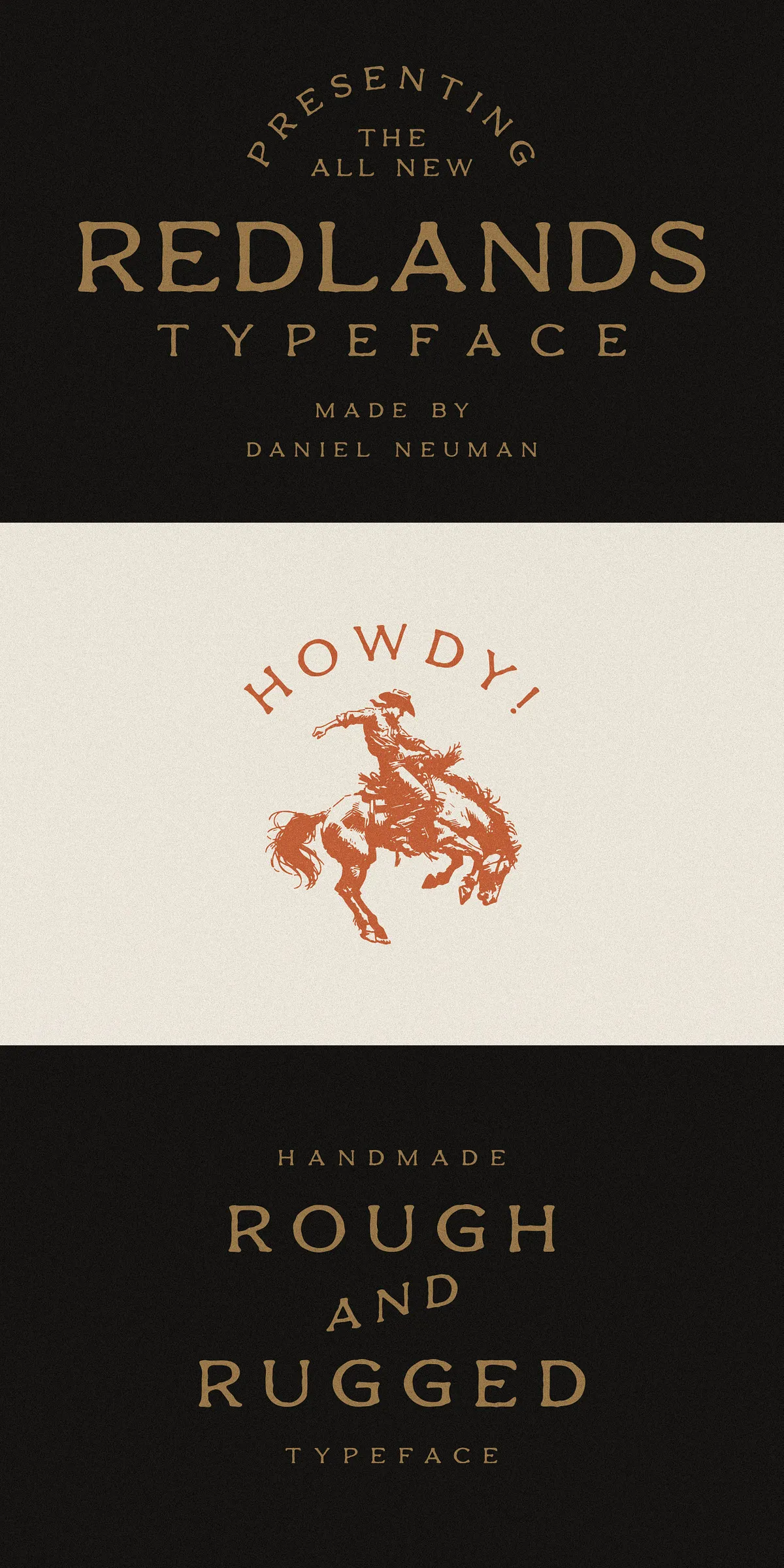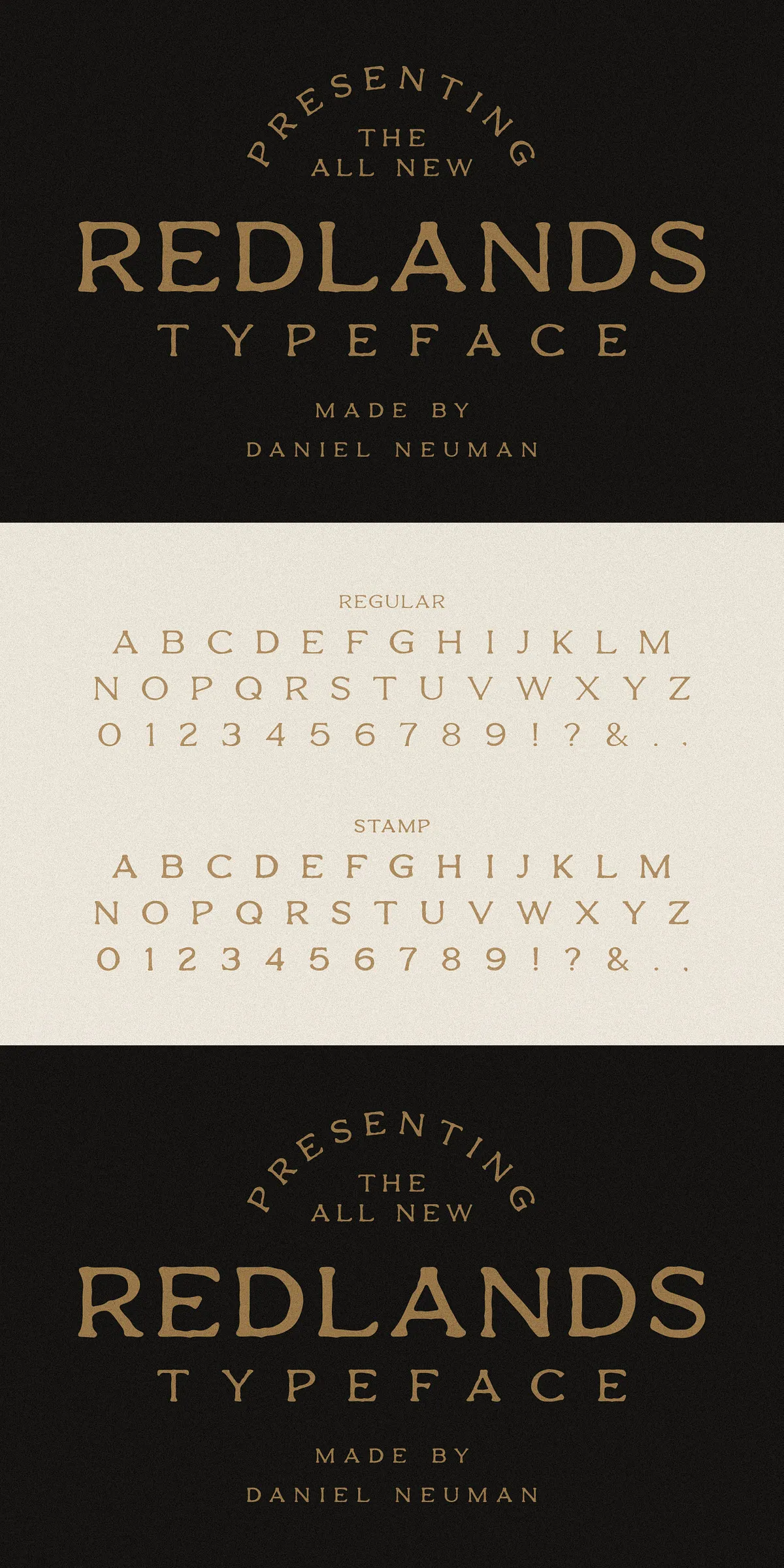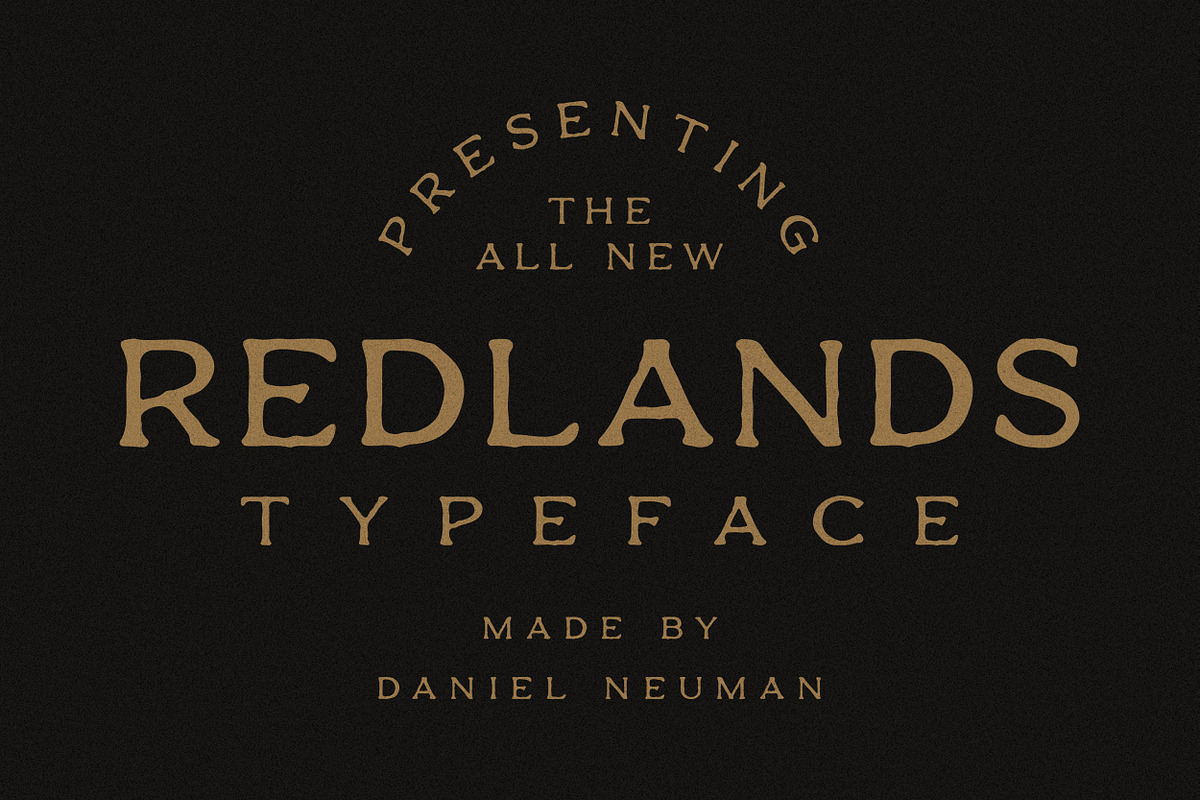
Welcome to the frontier of creativity. Redlands – a font duo that embodies the heart of the West with its regular and stamp versions. With Redlands Regular, you’ll find smooth lines that whisper tales of adventure, while Redlands Stamp thickens the plot with its rugged, vintage stamp-inspired edges. Saddle up your imagination and ride into a sunset of endless possibilities.
Contains single-case A-Z, numbers 0-9 and basic punctuation.